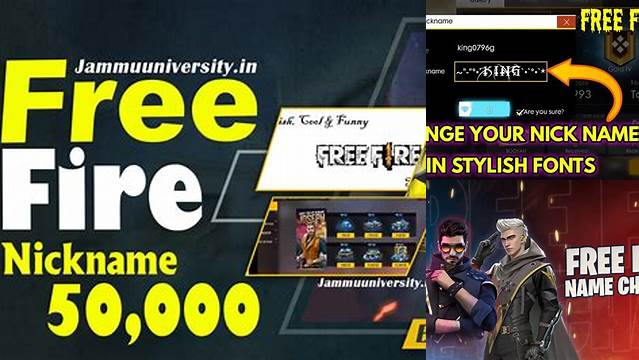
Free Fire Font Nickname: Create A Stylish In-Game Name
Hey guys! Are you ready to jazz up your Free Fire experience? One of the coolest ways to stand out in the crowded battle royale arena is by rocking a unique and stylish nickname. And guess what? A font nickname can be your secret weapon to achieving just that. Let's dive into how you can create awesome font nicknames for Free Fire and why it's such a hit.
Why Bother with a Font Nickname in Free Fire?
Okay, so you might be thinking, "Why should I even care about a fancy nickname?" Well, let me tell you, in a game where thousands of players are running around, a distinctive nickname can make all the difference. A font nickname isn't just about looking pretty; it's about making a statement.
Stand Out from the Crowd
In Free Fire, the default font can get a bit monotonous. Everyone's name looks pretty much the same, which means you're just another face in the crowd. By using a unique font, you instantly grab attention. Think of it as your personal brand in the game. When players see your name, they'll remember you β whether it's because you eliminated them with a headshot or because your nickname was simply too cool to forget. Plus, it adds a touch of personality to your in-game persona, making you more memorable and recognizable. Imagine having a nickname that screams style and individuality β that's the power of a great font nickname.
Show Off Your Personality
Your Free Fire nickname is an extension of your personality. It's a way to express yourself without saying a word. A font nickname allows you to inject some of your character into the game. Are you fierce and aggressive? Choose a bold, intimidating font. Are you more laid-back and playful? Go for something fun and quirky. The possibilities are endless. Your nickname can reflect your gaming style, your sense of humor, or even your favorite aesthetic. Itβs like wearing a badge of honor that tells everyone who you are without you having to say a thing. So, go ahead and let your nickname be a reflection of your awesome self.
Intimidation Factor
Let's be real β intimidation is a real thing in Free Fire. When you see a player with a badass nickname rocking a super cool font, it can be a bit unnerving. It suggests that this person is serious about the game and has put thought and effort into their appearance. This can give you a psychological edge over your opponents before the match even begins. They might second-guess their moves or underestimate you, giving you the upper hand. A well-crafted font nickname can signal that you're not just another noob β you're a player to be reckoned with. So, use it to your advantage and strike fear into the hearts of your enemies.
How to Create Your Awesome Font Nickname
Alright, now that you're convinced that a font nickname is the way to go, let's talk about how to create one. Don't worry; it's easier than you might think. There are tons of online tools and apps that can help you generate stylish nicknames with unique fonts and symbols.
Online Font Generators
The internet is your best friend when it comes to creating font nicknames. There are numerous websites specifically designed to generate fancy text. These tools allow you to type in your desired nickname and then choose from a variety of fonts, styles, and symbols. Some popular options include LingoJam, Nickfinder, and Cool Fancy Text Generator. Simply type in your name, scroll through the options, and pick the one that resonates with you the most. You can even customize the fonts further by adding special characters or combining different styles. These generators are incredibly user-friendly and require no technical skills, making it easy for anyone to create a standout nickname in seconds.
Mobile Apps
If you prefer using your smartphone, there are plenty of mobile apps available for both Android and iOS that offer similar functionality. These apps are often more convenient, as you can create your nickname on the go. Some popular apps include Stylish Text, Fancy Text Generator, and Nickname Generator for Games. These apps typically come with a wide range of fonts, symbols, and customization options, allowing you to create a truly unique nickname. Plus, many of them allow you to copy and paste your new nickname directly into Free Fire, saving you time and effort. So, whether you're on the bus, waiting in line, or just chilling at home, you can easily create a killer nickname with just a few taps on your phone.
Customization Tips
Creating a font nickname isn't just about picking a fancy font; it's about making it your own. Here are a few tips to help you customize your nickname and make it truly unique:
- Mix Fonts and Symbols: Don't be afraid to combine different fonts and symbols to create a one-of-a-kind nickname. Experiment with various combinations until you find something that you love.
- Add Special Characters: Special characters like stars, hearts, and other symbols can add flair to your nickname. Use them sparingly to avoid making your nickname look cluttered.
- Consider Readability: While it's important to have a stylish nickname, make sure it's still readable. Avoid fonts that are too complex or difficult to decipher.
- Reflect Your Style: Your nickname should reflect your personality and gaming style. Choose a font and style that resonates with you and represents who you are as a player.
Step-by-Step Guide to Changing Your Nickname in Free Fire
Okay, you've got your awesome new font nickname. Now what? Here's a step-by-step guide on how to change your nickname in Free Fire:
- Open Free Fire: Launch the Free Fire app on your mobile device.
- Go to Your Profile: Tap on your profile icon in the top-left corner of the screen.
Level Up Your Free Fire Experience Today!
So there you have it, guys! Creating a font nickname in Free Fire is a fun and easy way to stand out, express your personality, and even intimidate your opponents. With the help of online font generators and mobile apps, you can create a killer nickname in minutes. Just remember to keep it readable, appropriate, and reflective of your unique style. Now go out there and rock that awesome font nickname on the battlefield! Good luck, and have fun!